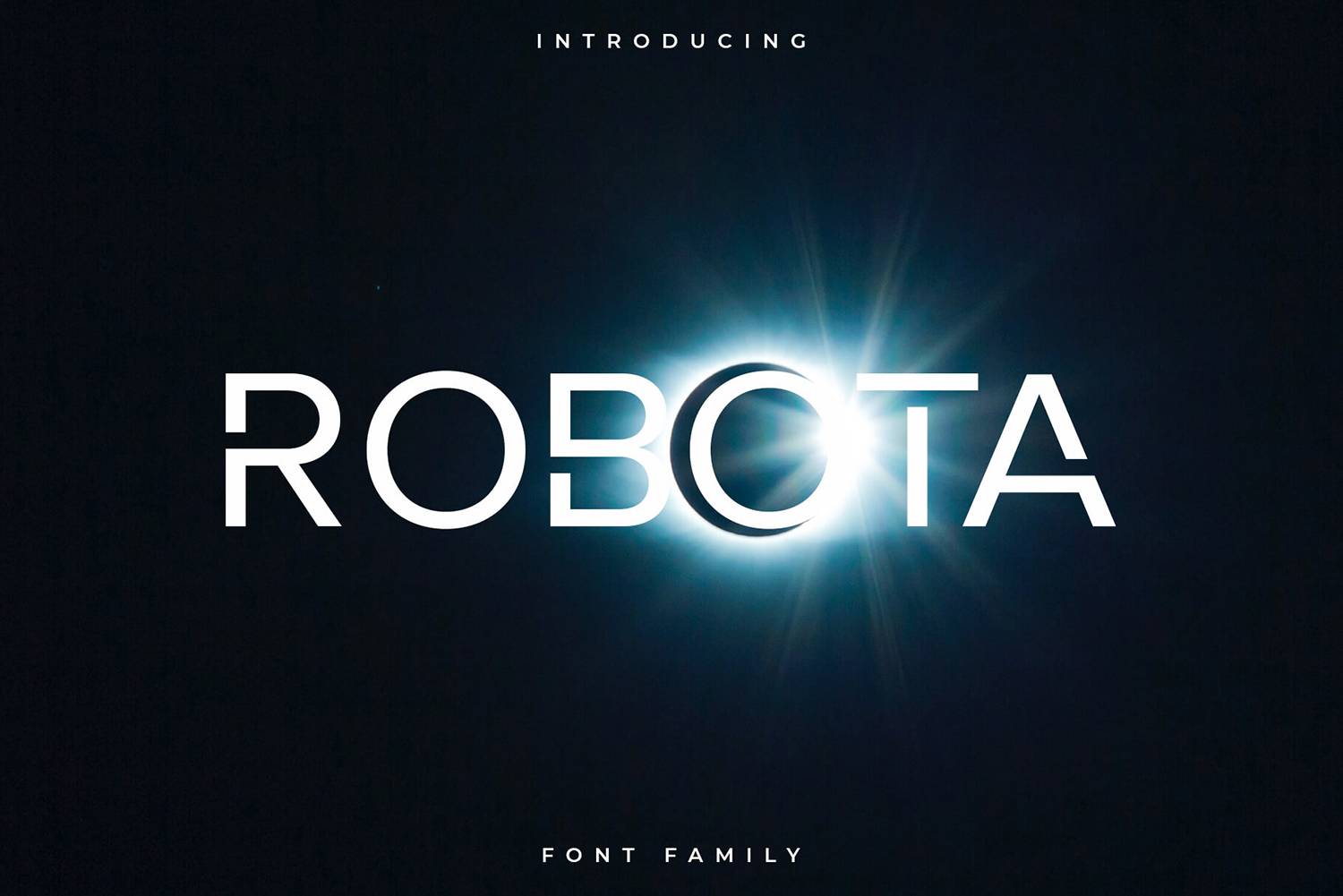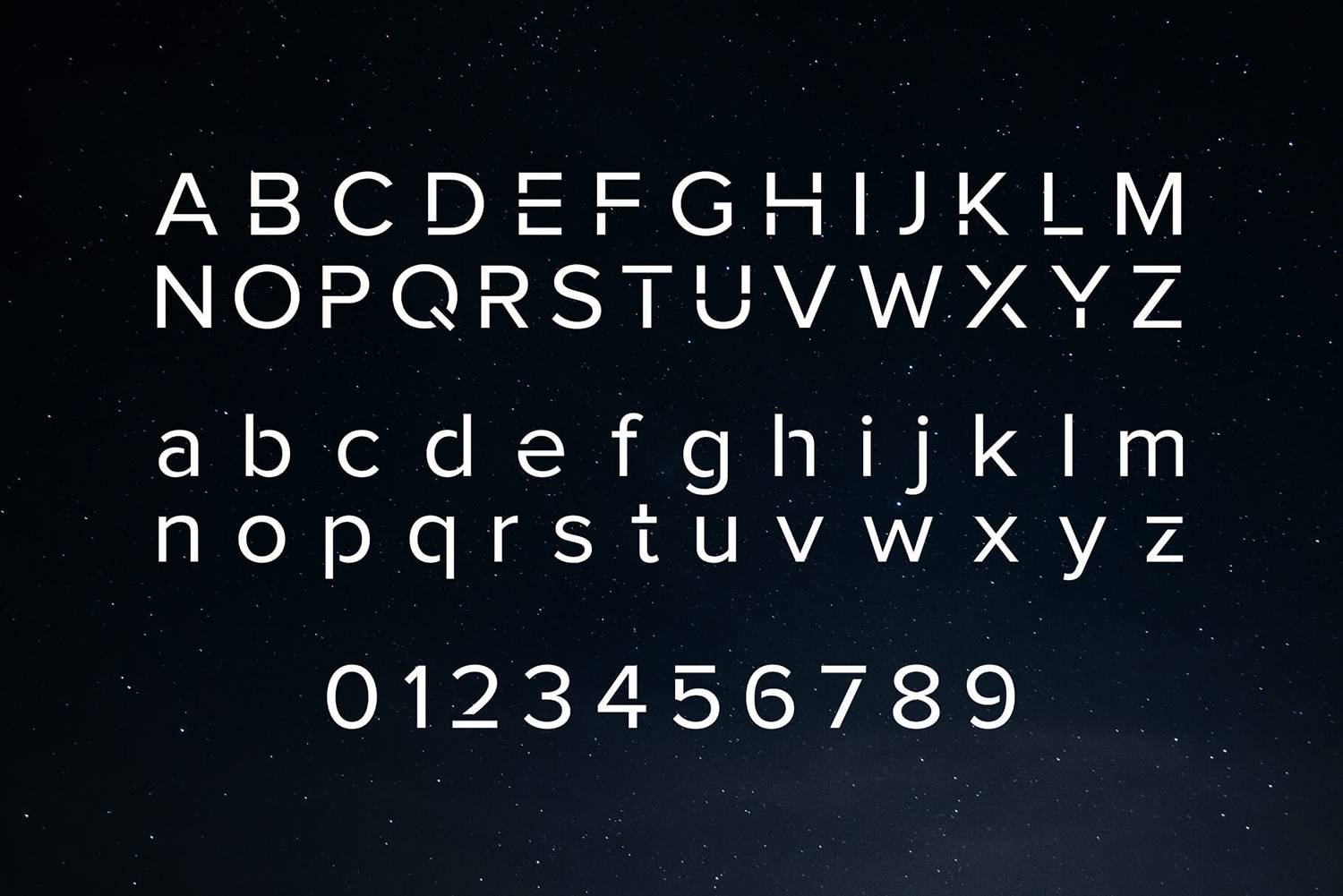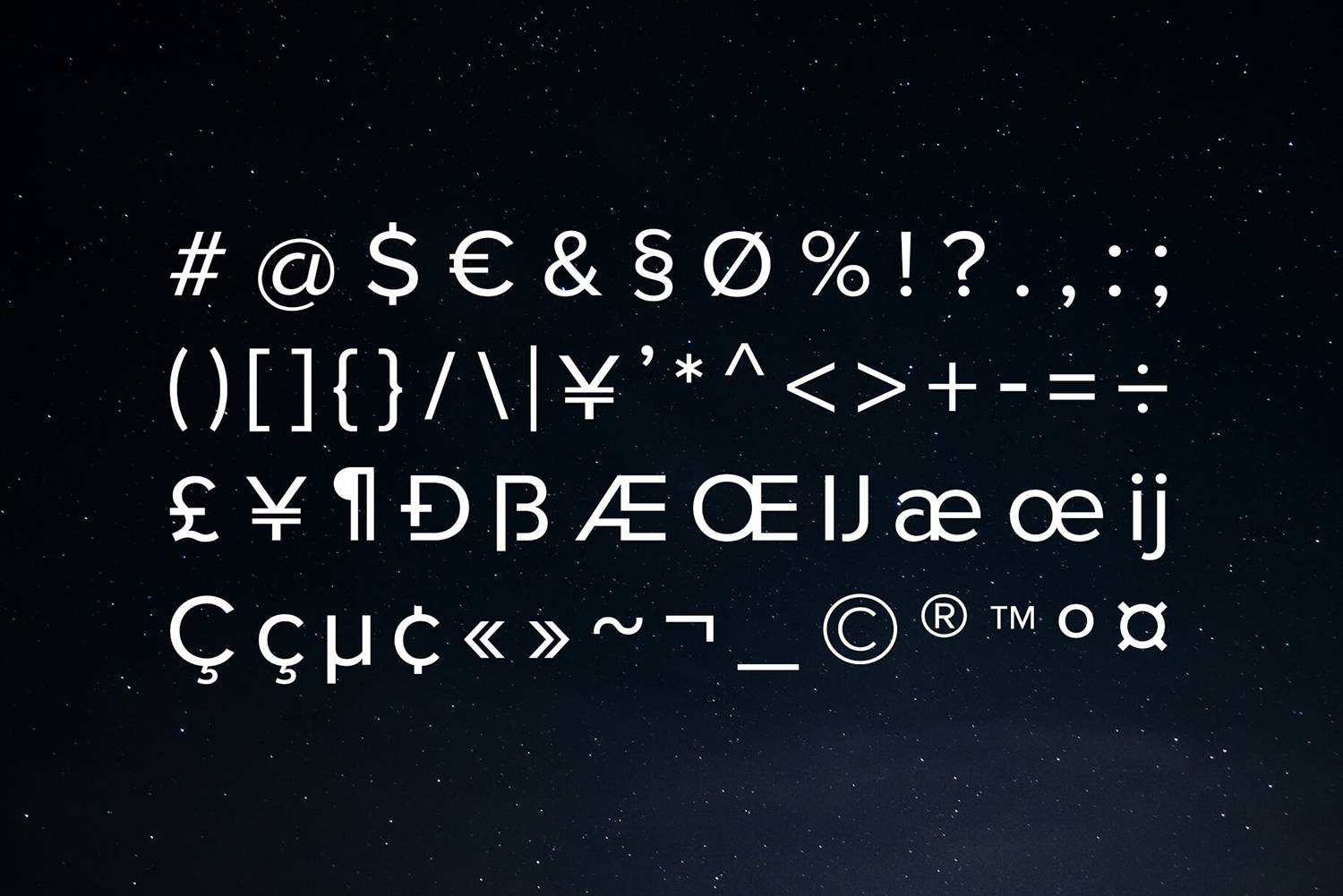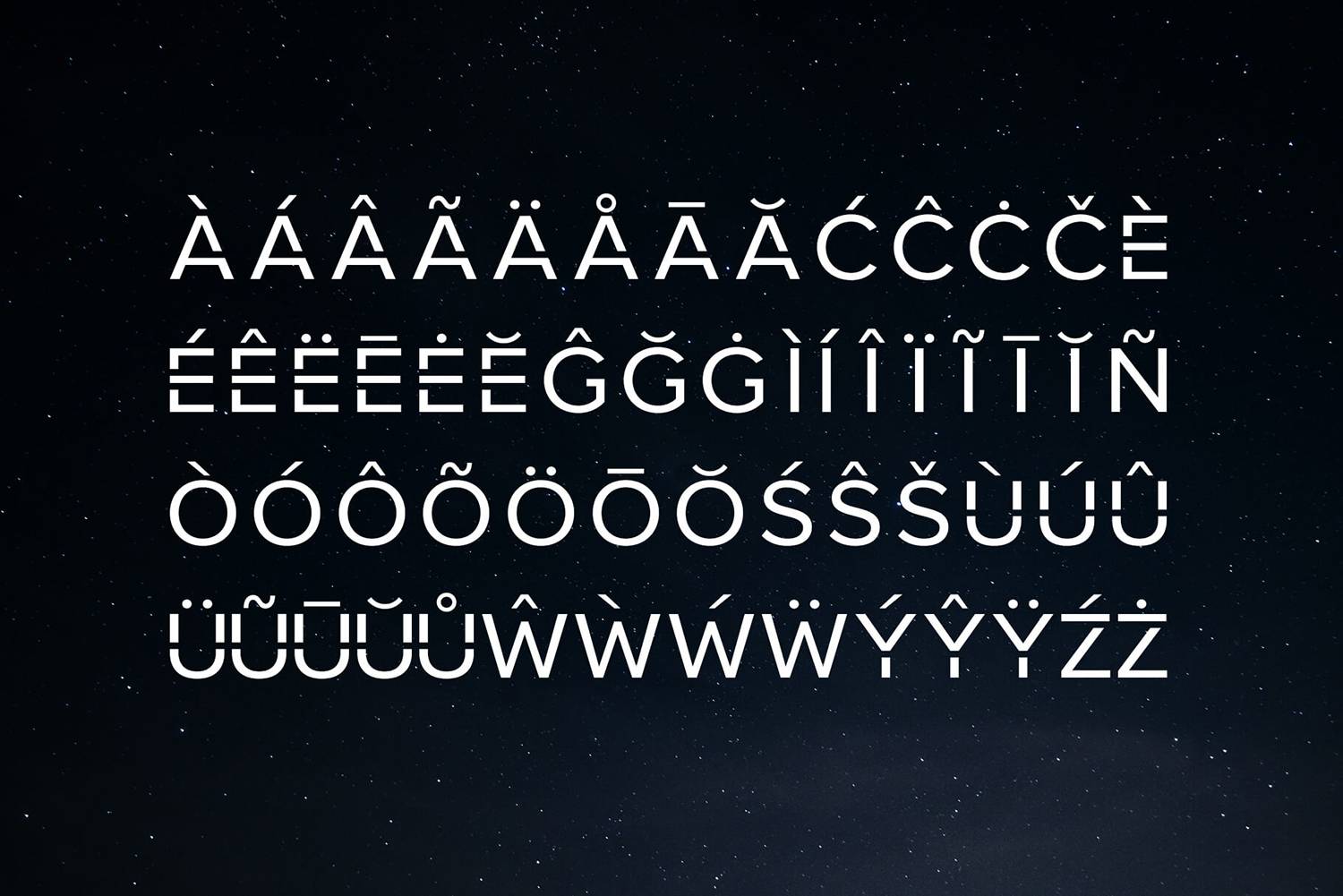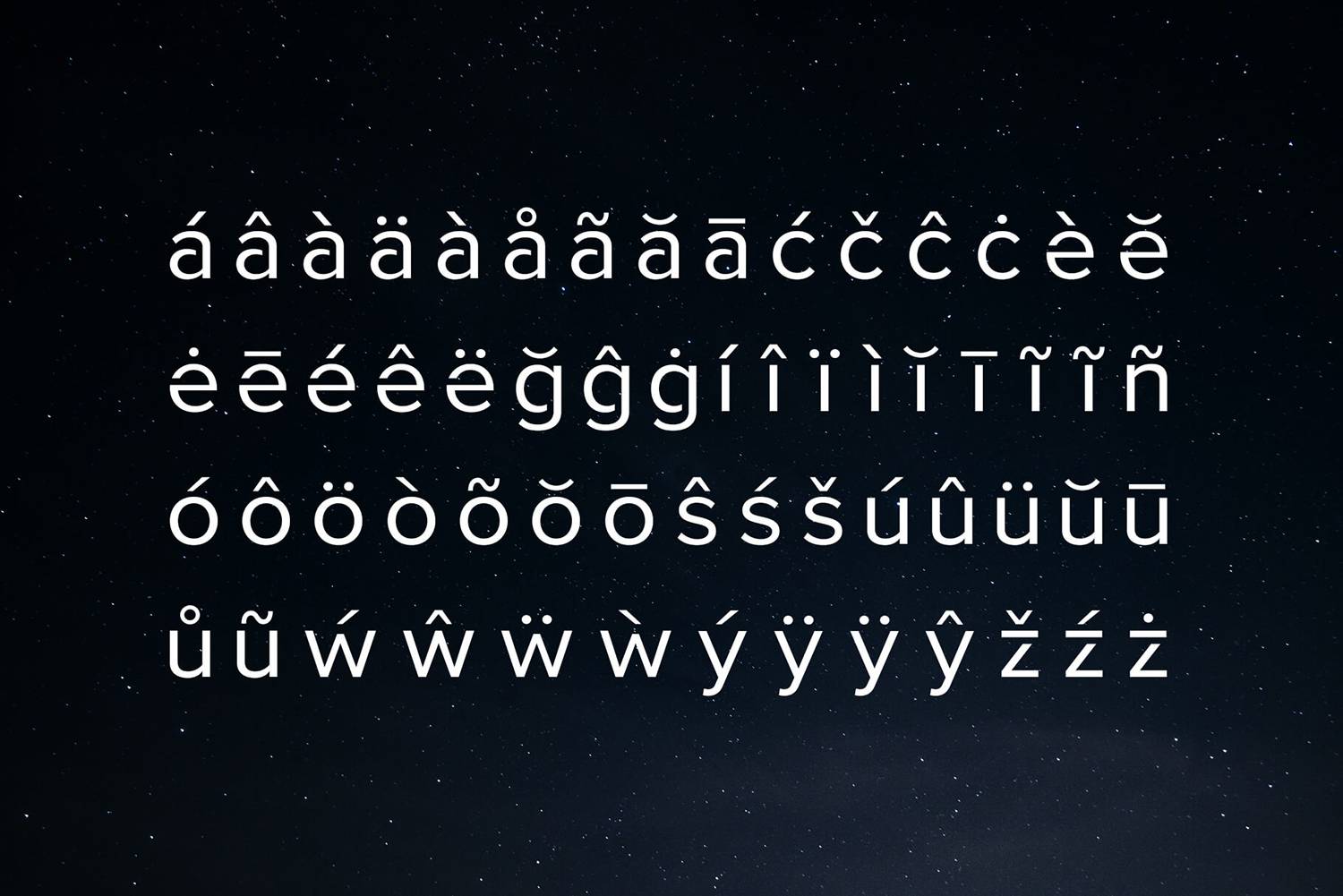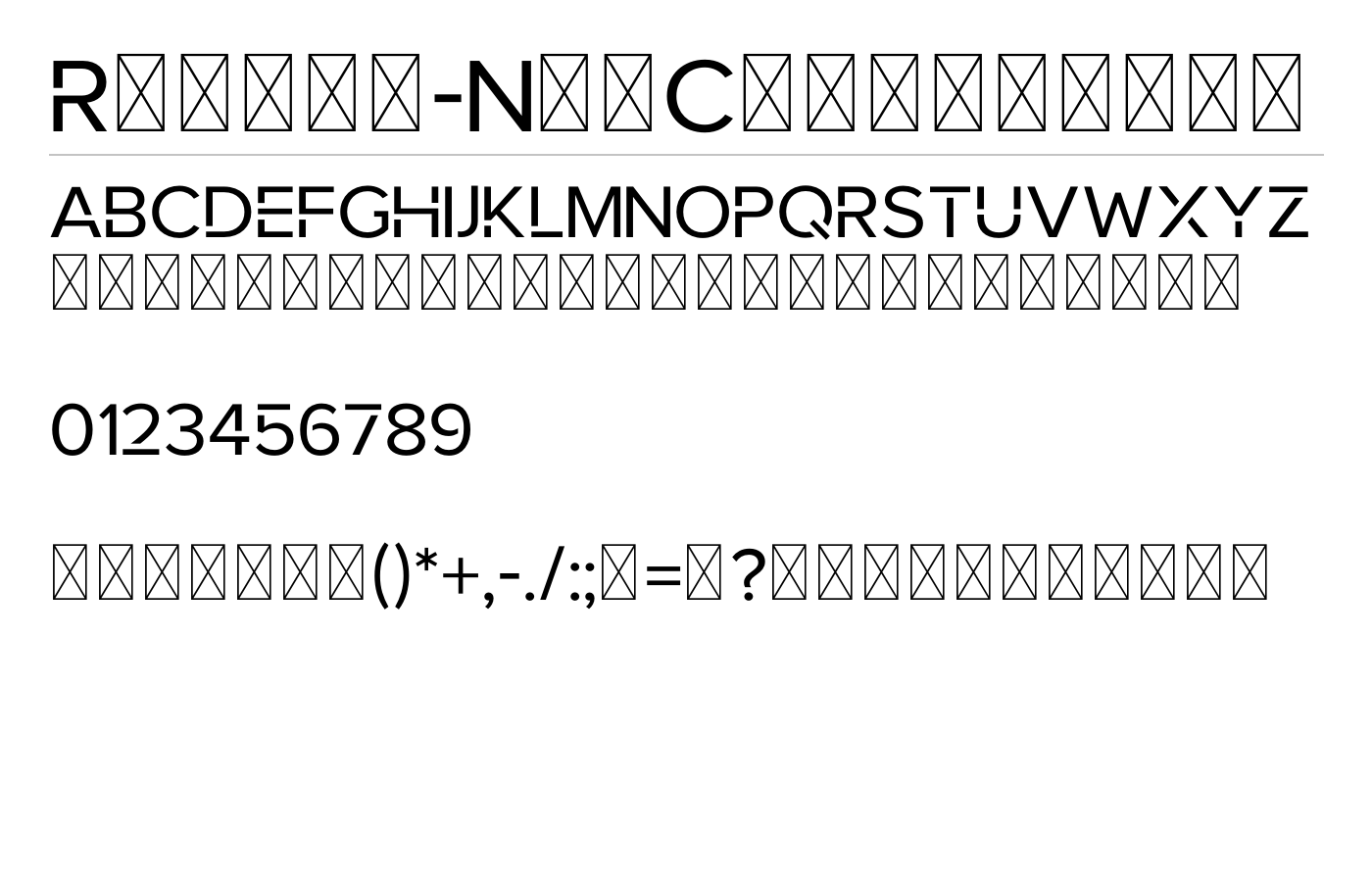
Robota is a sleek sans serif font characterized by its clean, geometric letterforms and consistent medium weight, offering a modern and minimalistic feel. Its straightforward design with uniform stroke widths and simple but distinctive details, like the angled terminals and unique shapes in letters such as A, Q, and R, makes it ideal for contemporary branding, editorial headlines, and digital interfaces where clarity and style are key. This font’s balanced spacing and bold yet elegant presence ensure it works well in both display and short text settings, conveying a professional and forward-thinking tone.
Robota Font
About Robota Font
| Font family | Robota Font |
| Designer | Robin Campistron |